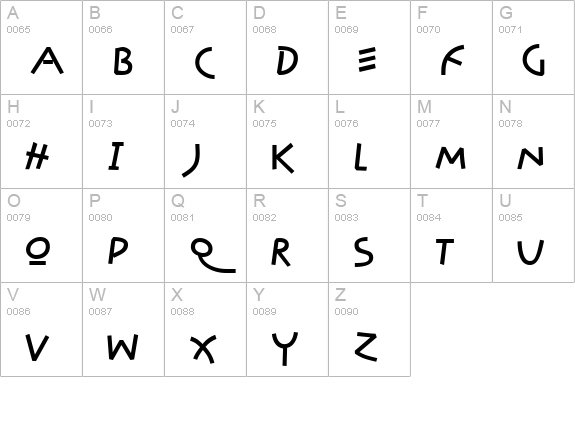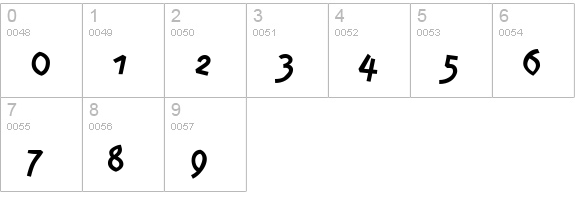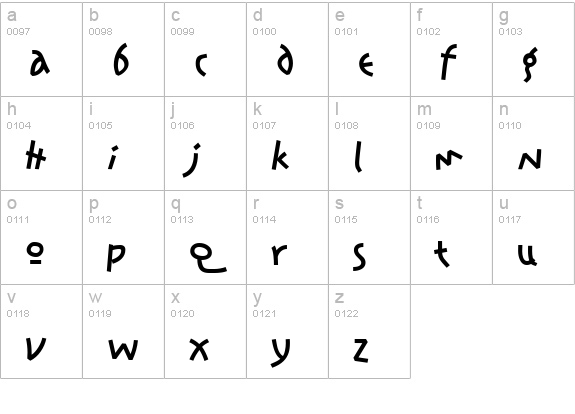
Prawn Handwrite Regular is the standard, neutral variant in the Prawn typeface family \xE2\x80\x94 well suited to general body text, paragraphs, and standard typographic work.
Prawn Handwrite Regular font is a charming and versatile typeface that exudes a playful and handwritten feel. Its unique design features quirky strokes and whimsical curves that add a personal touch to any project. Whether you're creating invitations, posters, or branding materials, this font is sure to make your text stand out. Best of all, Prawn Handwrite Regular font is completely free to download at FontsMarket.com. Simply visit the website and add this delightful font to your collection without any cost. With its free availability, you can unleash your creativity and use Prawn Handwrite Regular font in various design projects without any limitations. Make your text pop with this fun and expressive typeface today!